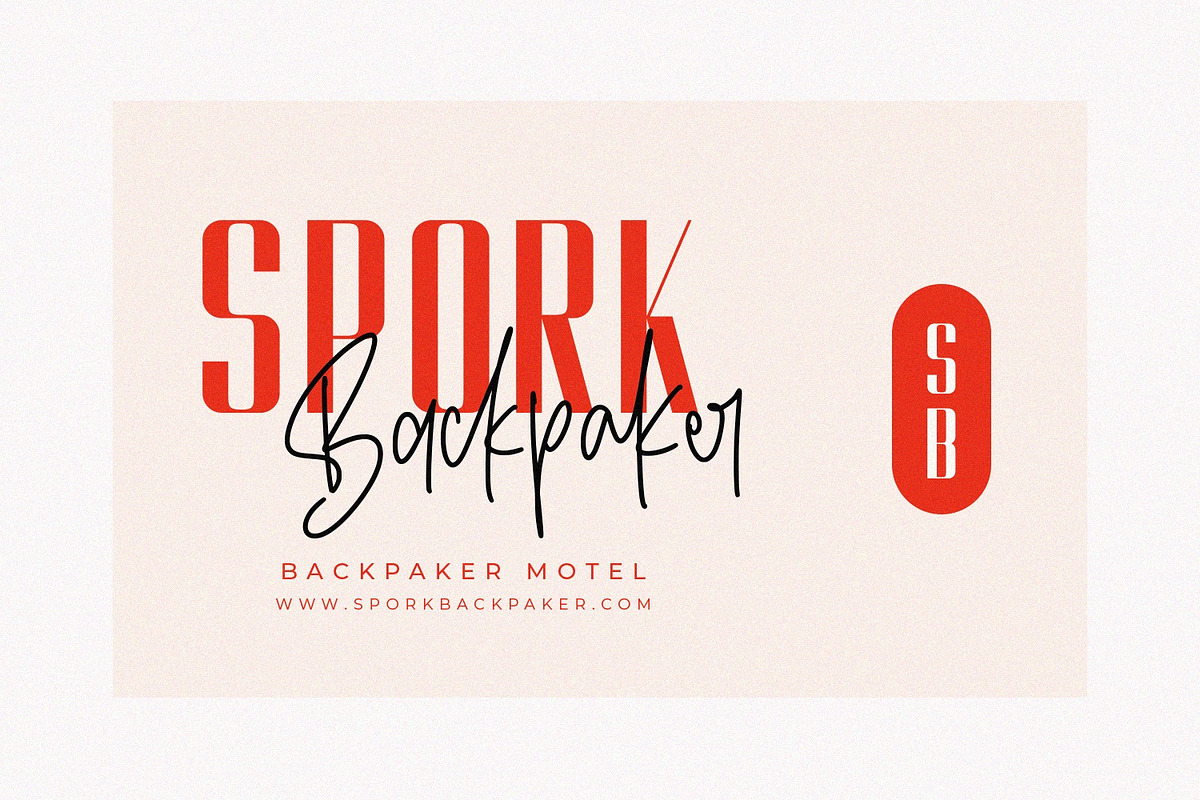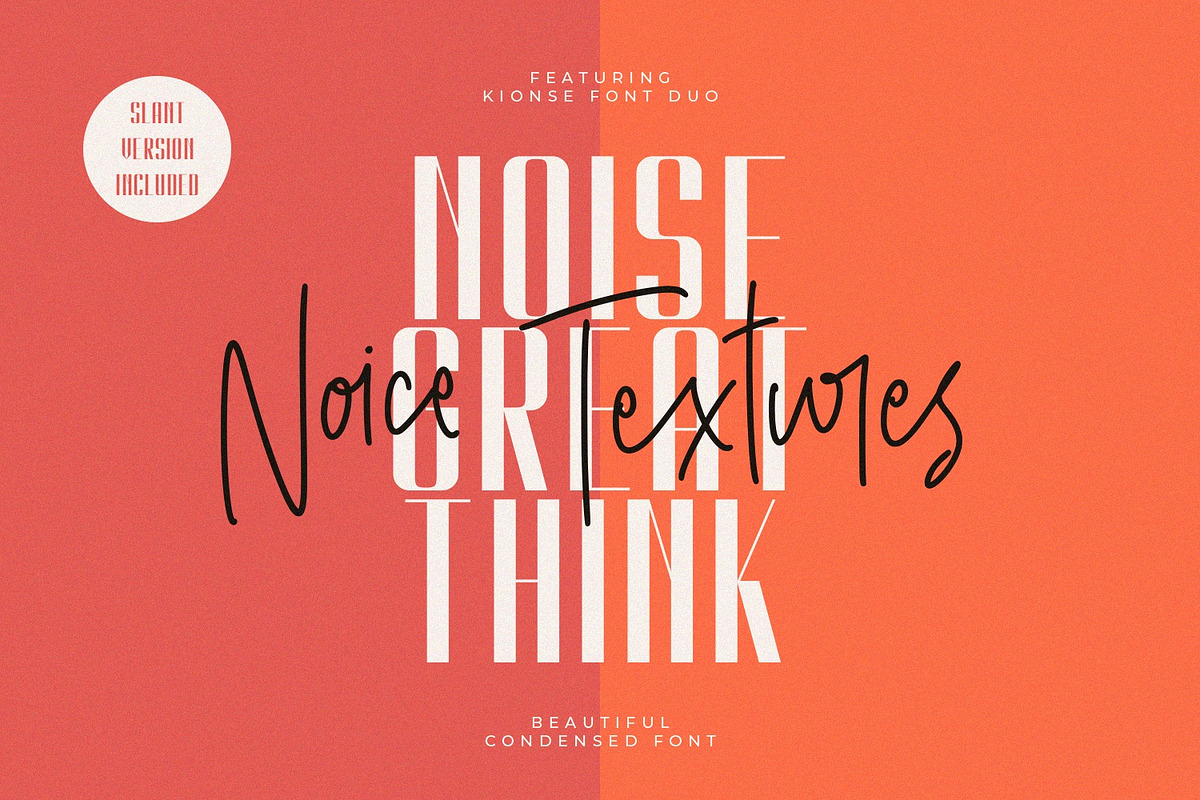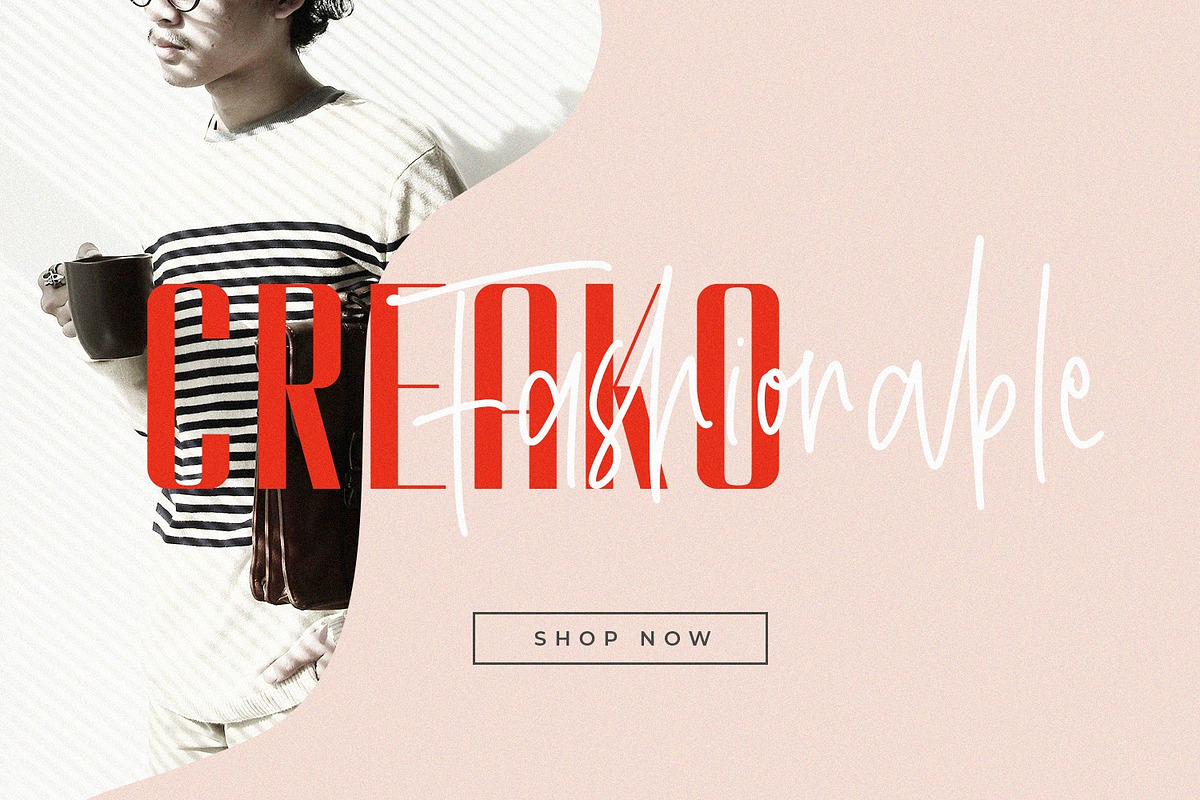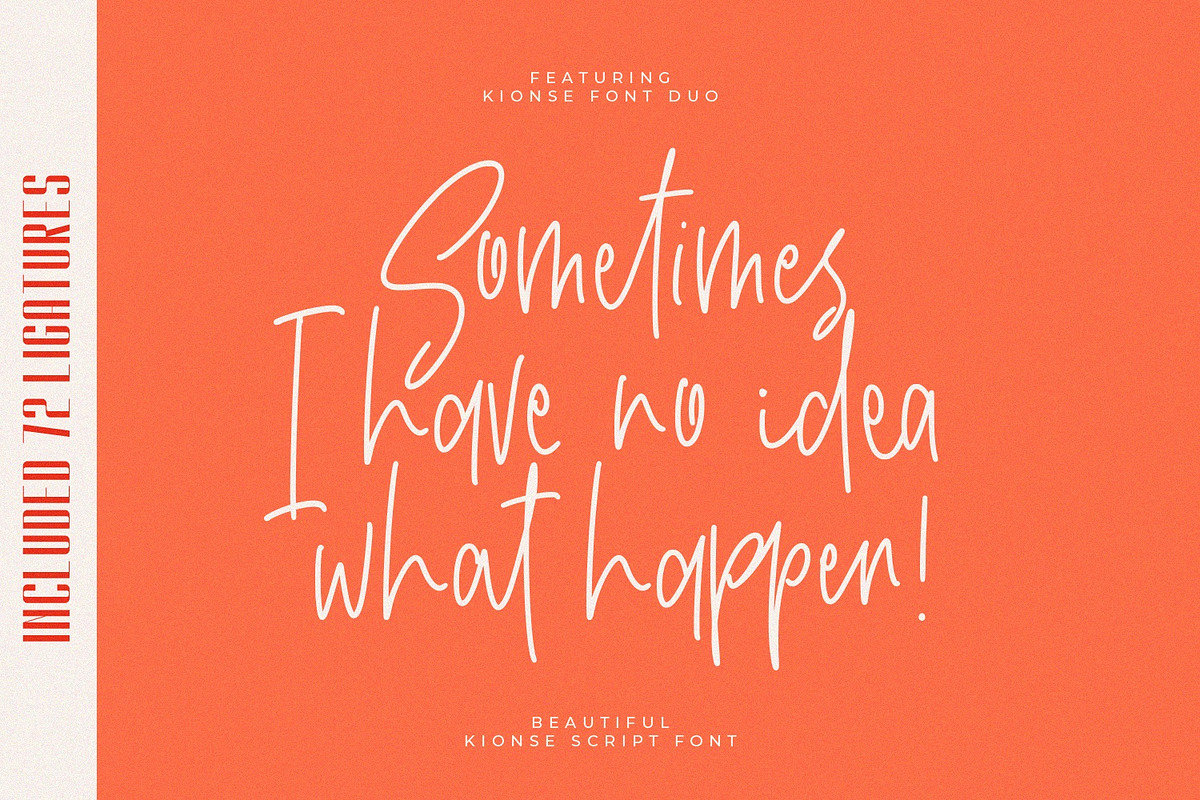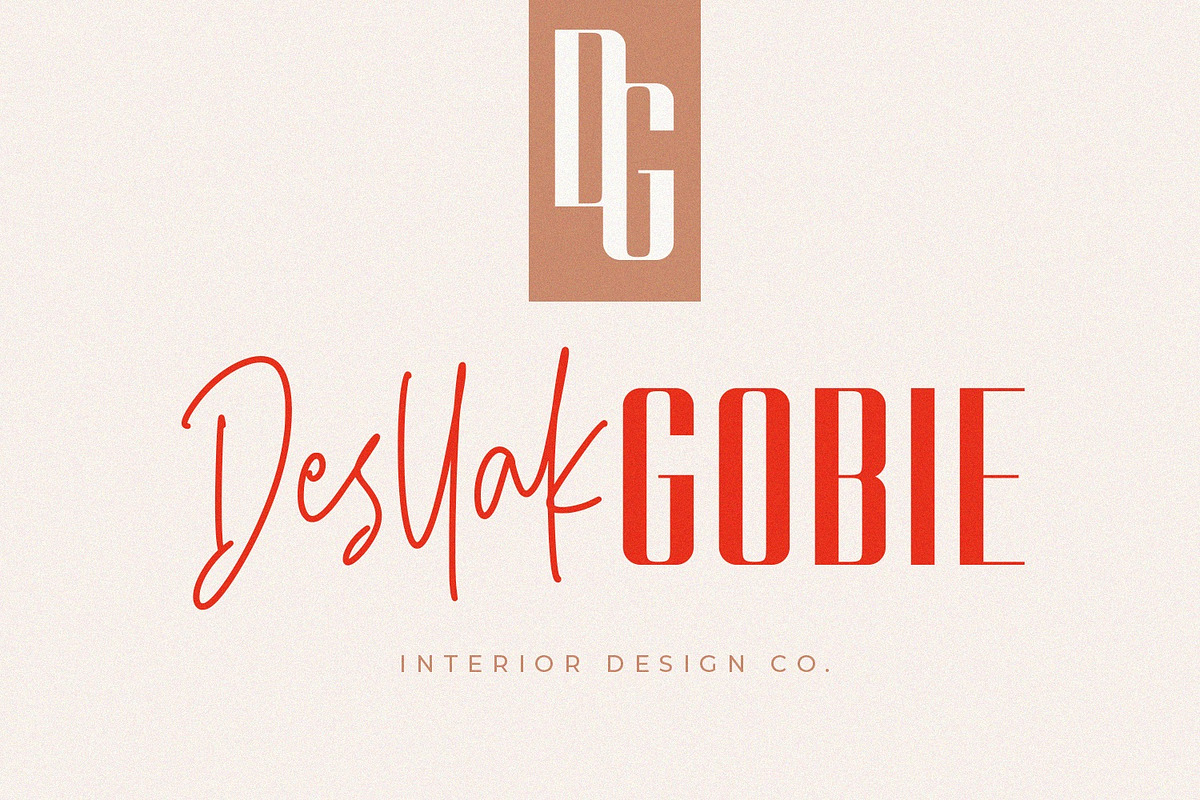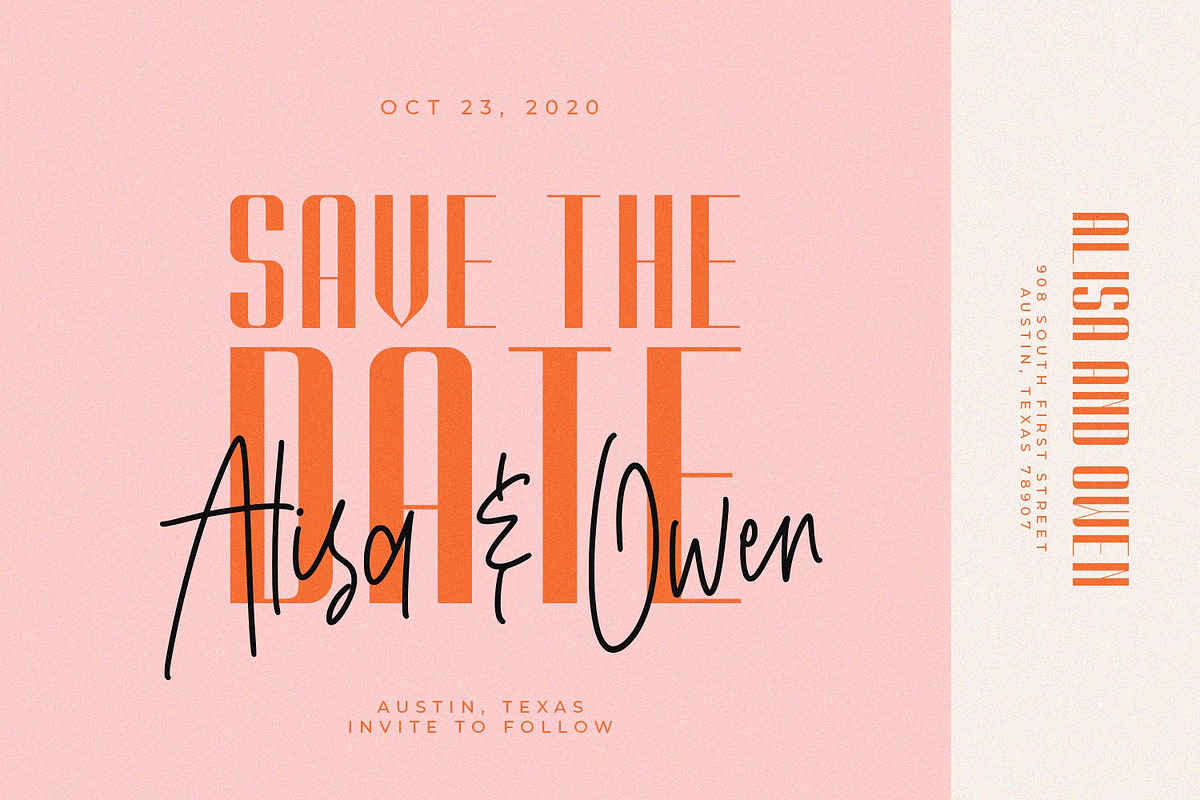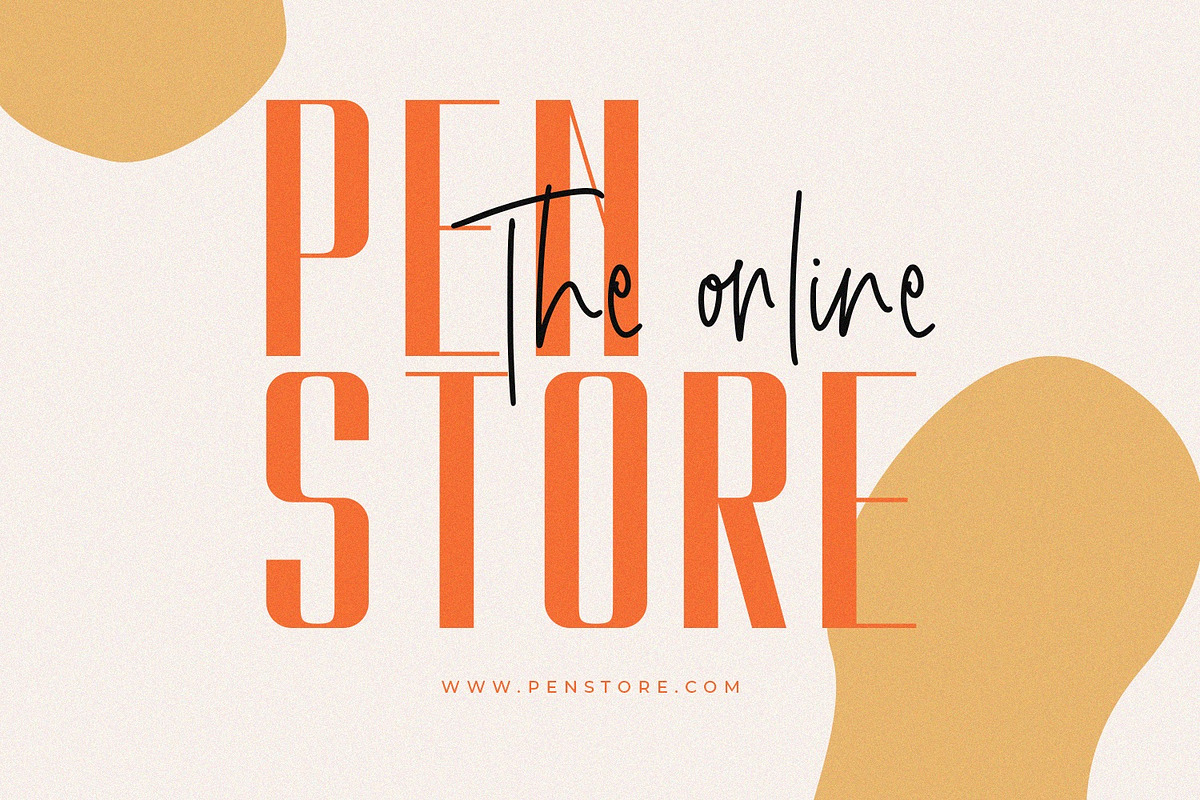
Kionsa - Ultra Condensed Font Duo
Introducing Kionsa - Ultra Condensed Font Duo. It comes with an elegant and retro style which is perfect to make any design stand out! This font is perfect for branding, wedding invites, magazines, mugs, business cards, quotes, posters, and more.
Kionsa Type Features:
Suitable for Headlines, Logotypes, Signs, Posters, Letterhead, T-Shirt and many more.
- More Ligatures
- Suitable for Headlines, Logotypes, Signs, Posters, Letterhead, T-Shirt and many more.